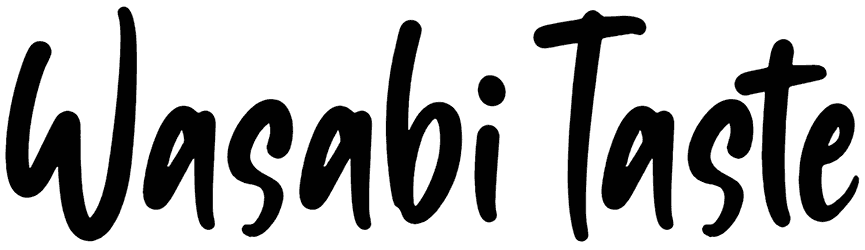
Wasabi Taste Font
Wasabi Taste is more reminiscent of hand lettering that can have a real impact on the audience. The use of this font is recommended for new designers because it can reduce the risk of looking unprofessional.
The combination of letters in this handwritten font is carefully designed to give the written text a lot of credibility. That’s why this strong texture is used to design the text of invitations, and decorate greeting cards and friendly letters.